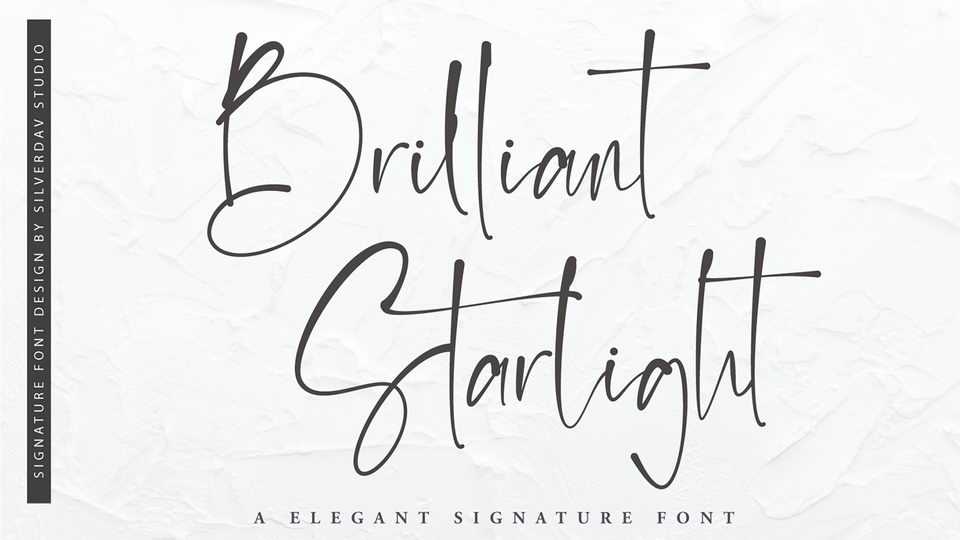
Download Brilliant Starlight font, a stylish signature style script made with natural writing, so it gives an elegant impression. Brilliant Starlight is a font that is perfect for signatures, logos, branding, quotes, etc.
Designer: Silverdav Studio